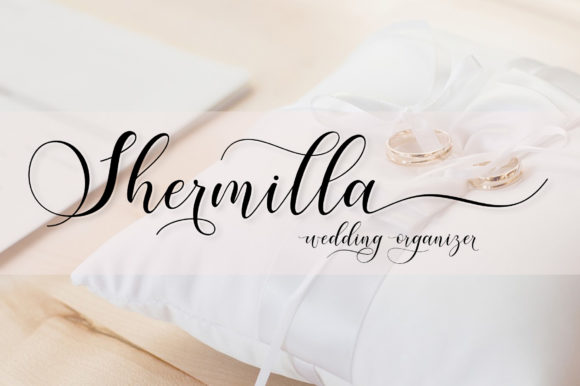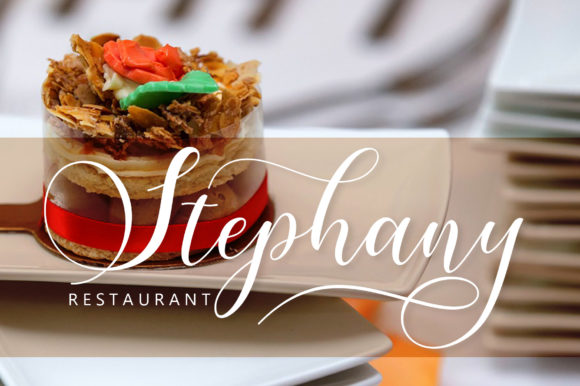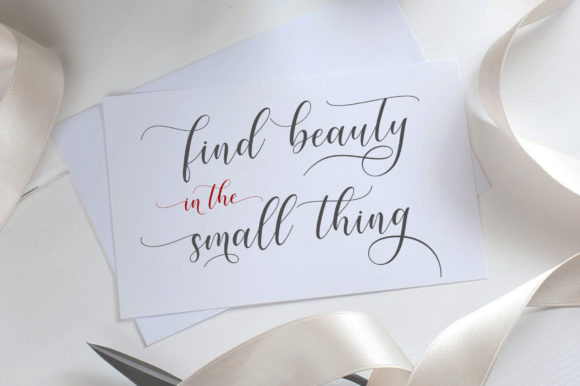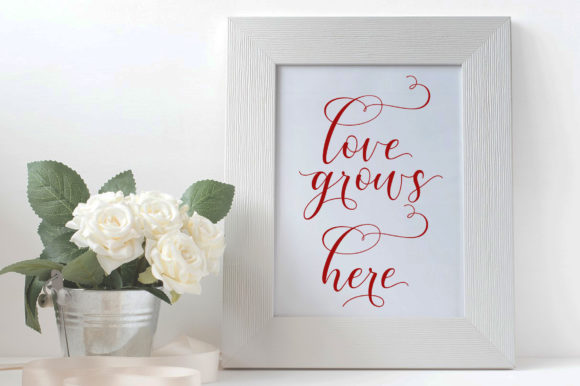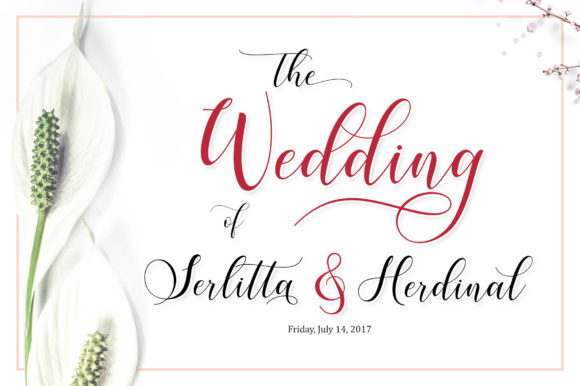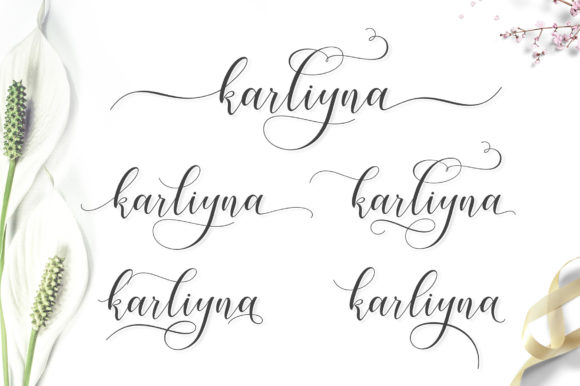
HomeScript FontsKarliyna Font Script Fonts Karliyna Font FacebookXPinterestWhatsApp Karliyna Font Poster 2 Karliyna Font Poster 3 Karliyna Font Poster 4 Karliyna Font Poster 5 Karliyna Font Poster 6 Karliyna Font Poster 7 About Karliyna Font Karliyna is a friendly and modern handwritten font. Fall in love with its swashy style! DOWNLOAD ON CREATIVE FABRICAThis font is sold and delivered by Creative Fabrica. Font Canyon may earn a commission if you buy through this link. People also explored Speechless in Winter Font Plainfield Font Paper Signature Font Sufler Summer Dream Font Lemonade Font Spring Heart Font Barsdeya Font Meilalya Font 342 0 TagsKarliyna Font Previous articleBalgeris FontNext articleGloretha Font LEAVE A REPLY Cancel reply Comment: Please enter your comment! Name:* Please enter your name here Email:* You have entered an incorrect email address! Please enter your email address here Website: Save my name, email, and website in this browser for the next time I comment. Personal Use Free Ardilla Font Personal Use Free Read more about this font Callisa Script Personal Use Free Read more about this font Autines Personal Use Free Read more about this font Pelmeshka Personal Use Free Read more about this font BLOG Best Fonts for YouTube Videos: Make Your Thumbnails Stand Out Best Fonts for YouTube Videos: Make Your Thumbnails Stand Out Choosing the right font can make a massive difference in how your YouTube videos perform.... 5 Fonts That Will Dominate Design Trends in 2026 To increase your work productivity, choose the most readable fonts. Best Fonts for T-Shirt Design – Top 2025 Picks